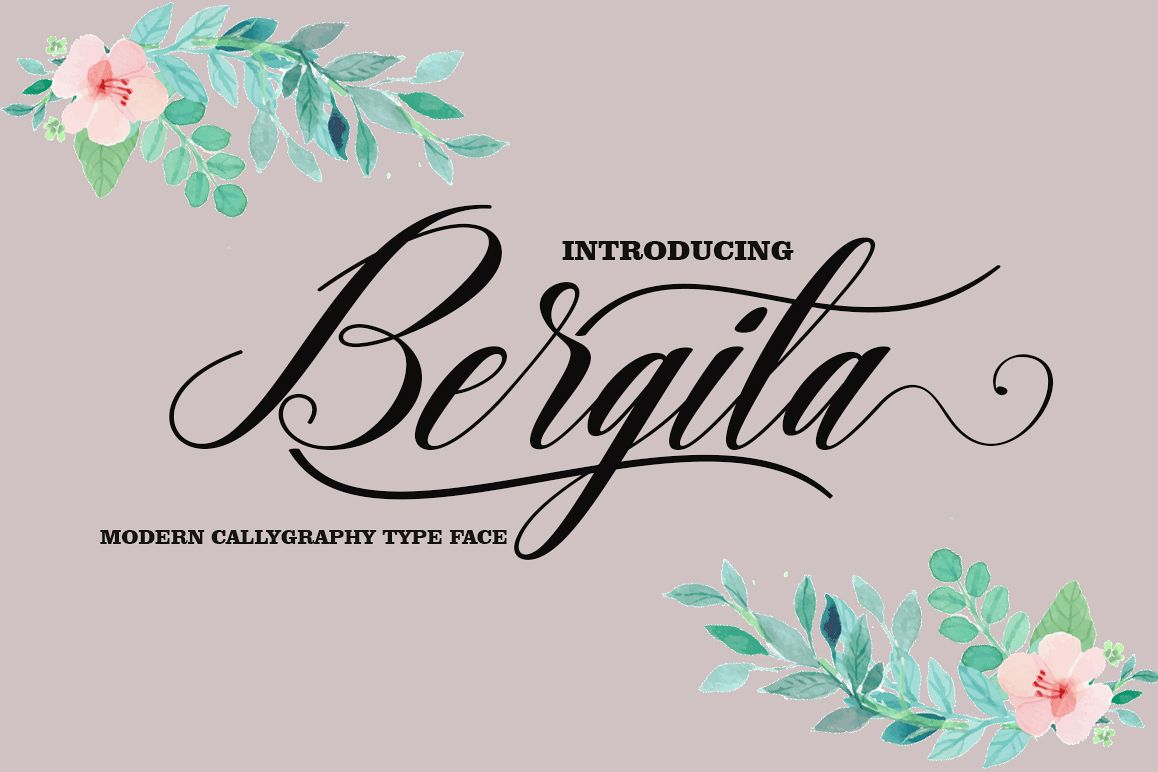
Bergita
INTRODUCING
Bergita  Modern Calligraphy. This font was designed by handwriting, and it has a modern and unique forms of calligraphy, the writing style is very natural. Bergita has a very unique style of calligraphy, it is very suitable for use in the work of modern design.
Can be used for various purposes.such as headings, logos, wedding invitation, t-shirt, letterhead, lable, news, posters, badges etc. To enable the OpenType Stylistic alternates, you need a program that supports OpenType features such as Adobe Illustrator CS, Adobe Indesign & CorelDraw X6-X7.a font that made the hand by having the character up and down like a dancer. Annabeth has a very unique style of calligraphy, it is very suitable for use in the work of modern design.